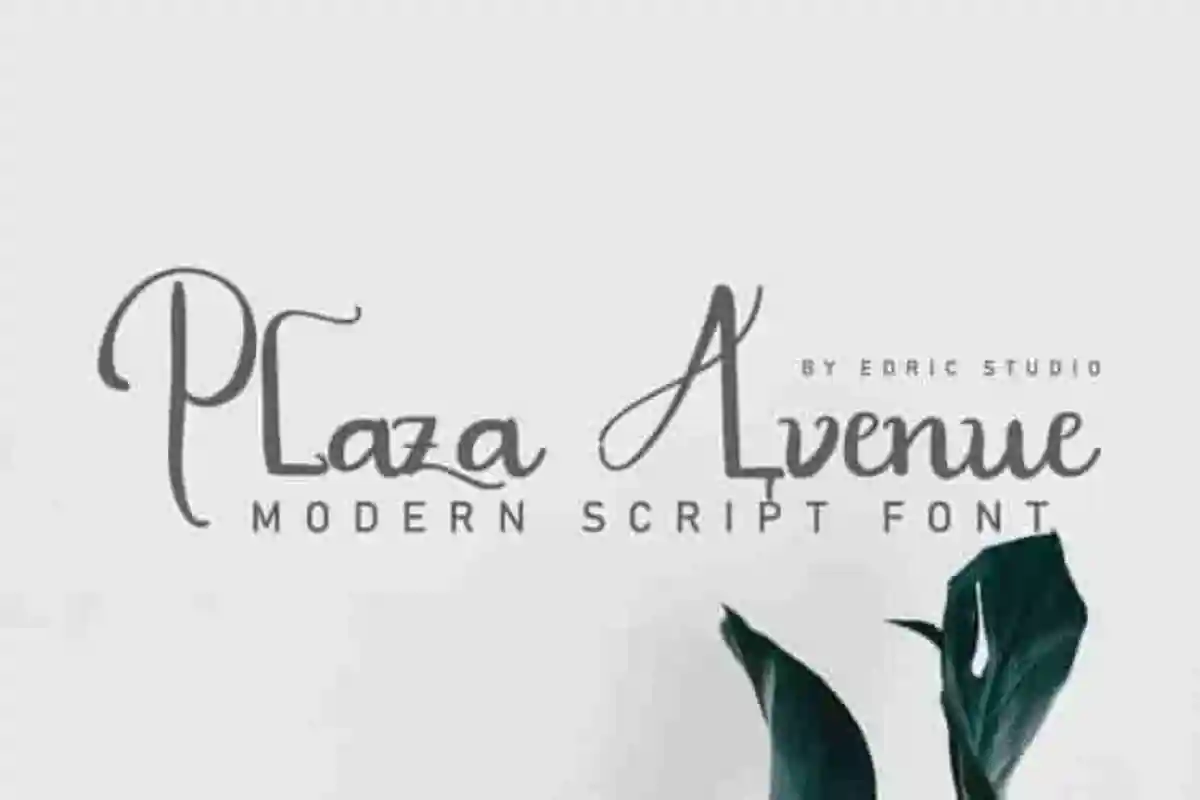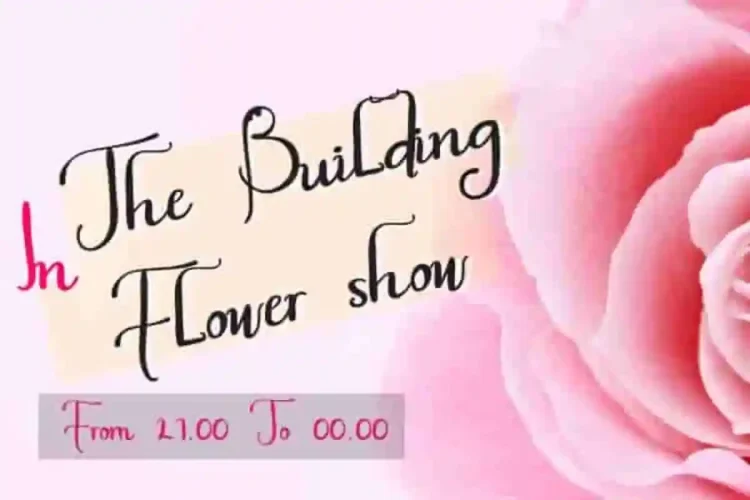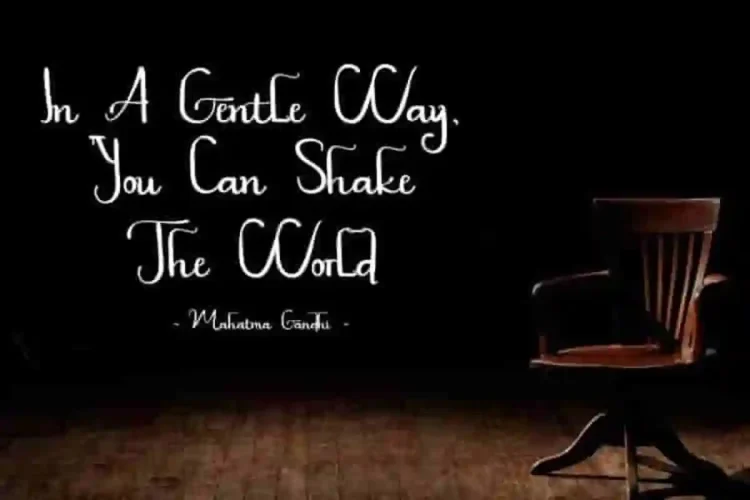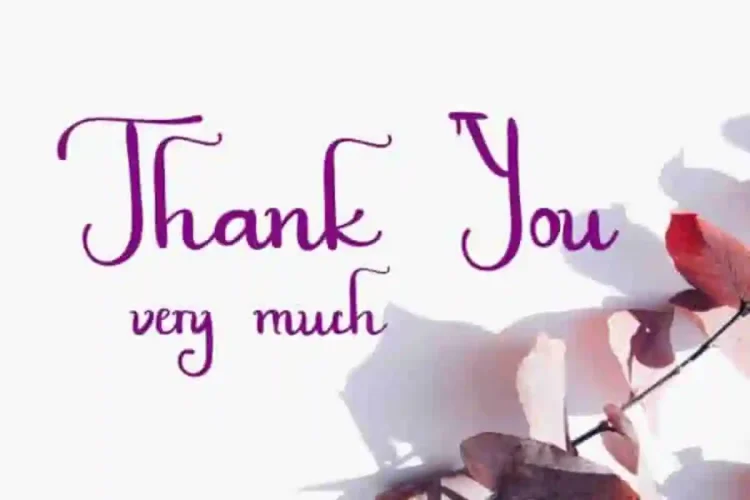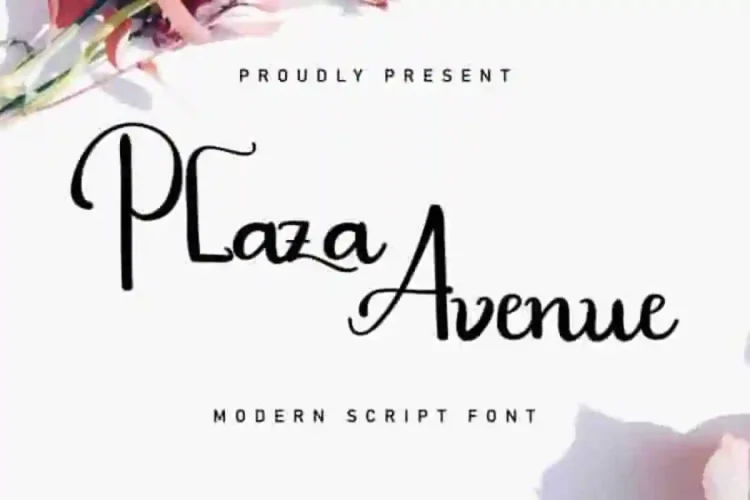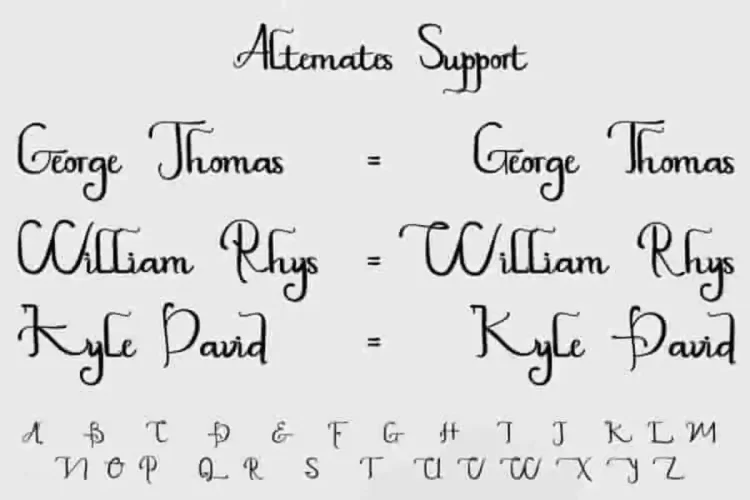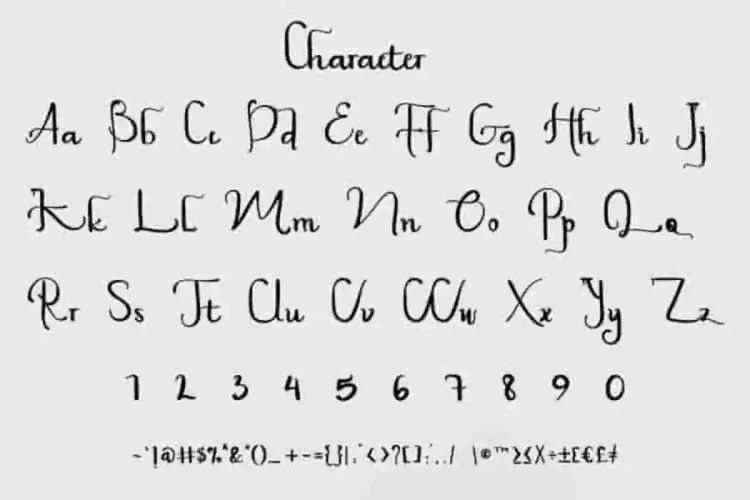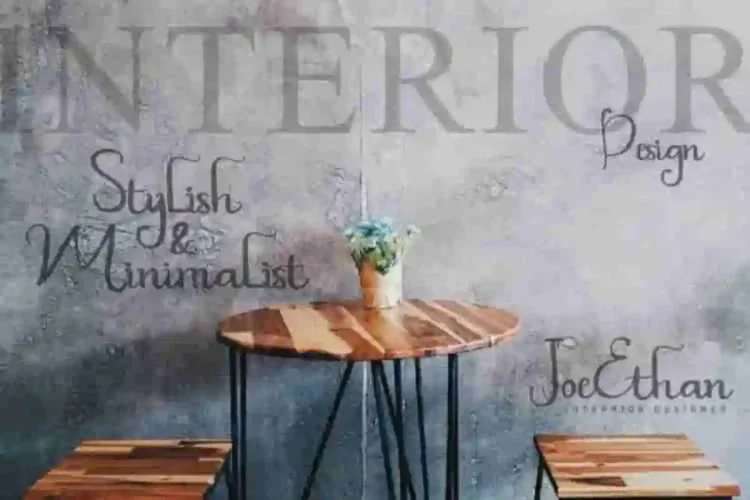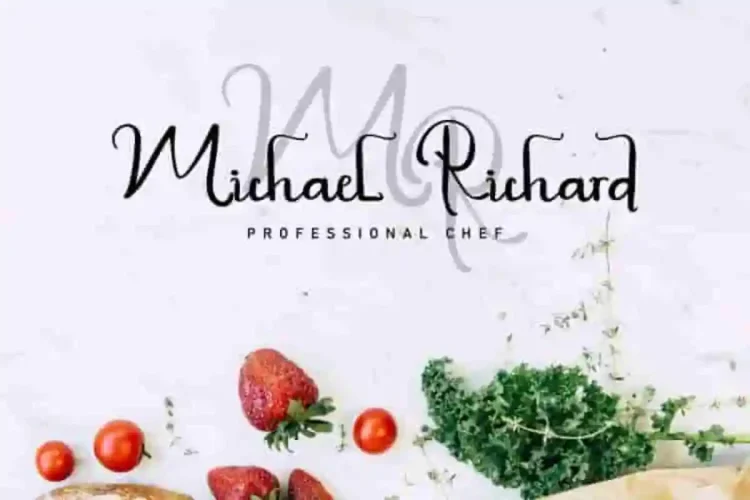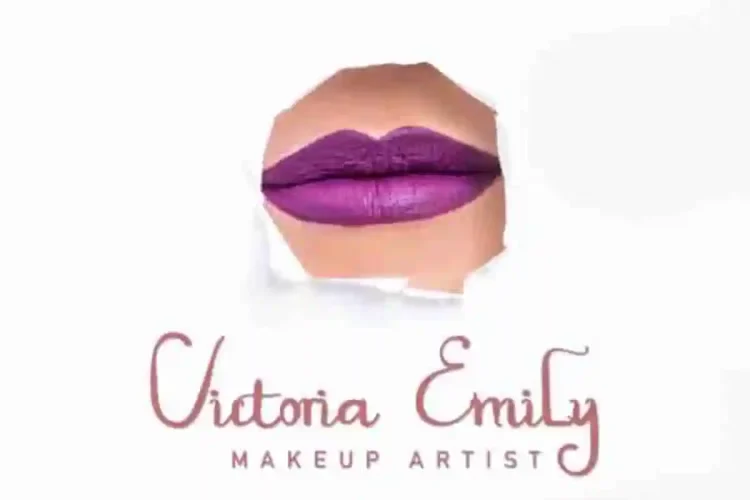
Plaza Avenue Caligraphy Script Font
This is a display calligraphy font, handcrafted from our Studio here in, Indonesia. The artists/designers of this beautiful tyeface is Saila and Suci.
Plaza Avenue Calligraphy Script Font is an exclusive handwrittig script for display purpose. This font has a stunning characters set, perfectly managed with well spaced and kerning.